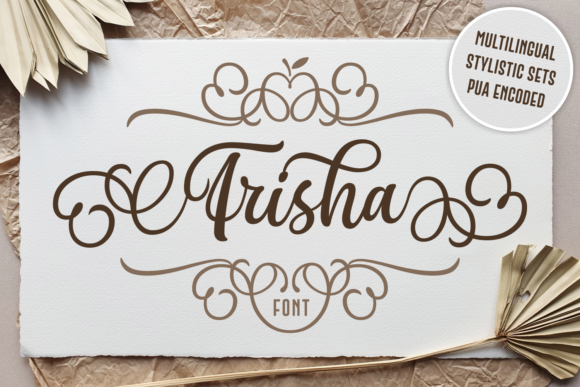
Unleash your creativity with Frisha Font, a stunning script font that captures the essence of classic typography while adding a touch of modern elegance to your designs. Crafted by the talented Situjuh, Frisha is a versatile font that will elevate your projects to new heights.
Transport yourself to a world of timeless beauty, where your words dance across the page with grace and sophistication. Frisha's meticulously crafted curves and flourishes evoke a sense of nostalgia, while its clean and modern lines ensure it remains relevant in the digital age.
Immerse yourself in a symphony of visual delight as Frisha's sweeping strokes and graceful serifs command attention. Whether you're creating eye-catching headlines, captivating invitations, or heartfelt letters, Frisha will add a touch of magic to your designs.
With Frisha, you'll discover the joy of seamless versatility. Use it to craft elegant logos that exude professionalism, design stunning posters that grab attention, or add a touch of charm to your social media posts. The possibilities are endless, and the creative journey is yours to explore.
Don't settle for ordinary fonts that blend into the background. Embrace the extraordinary with Frisha, a font that will make your designs stand out from the crowd. Let your imagination soar as you create masterpieces that captivate and inspire.